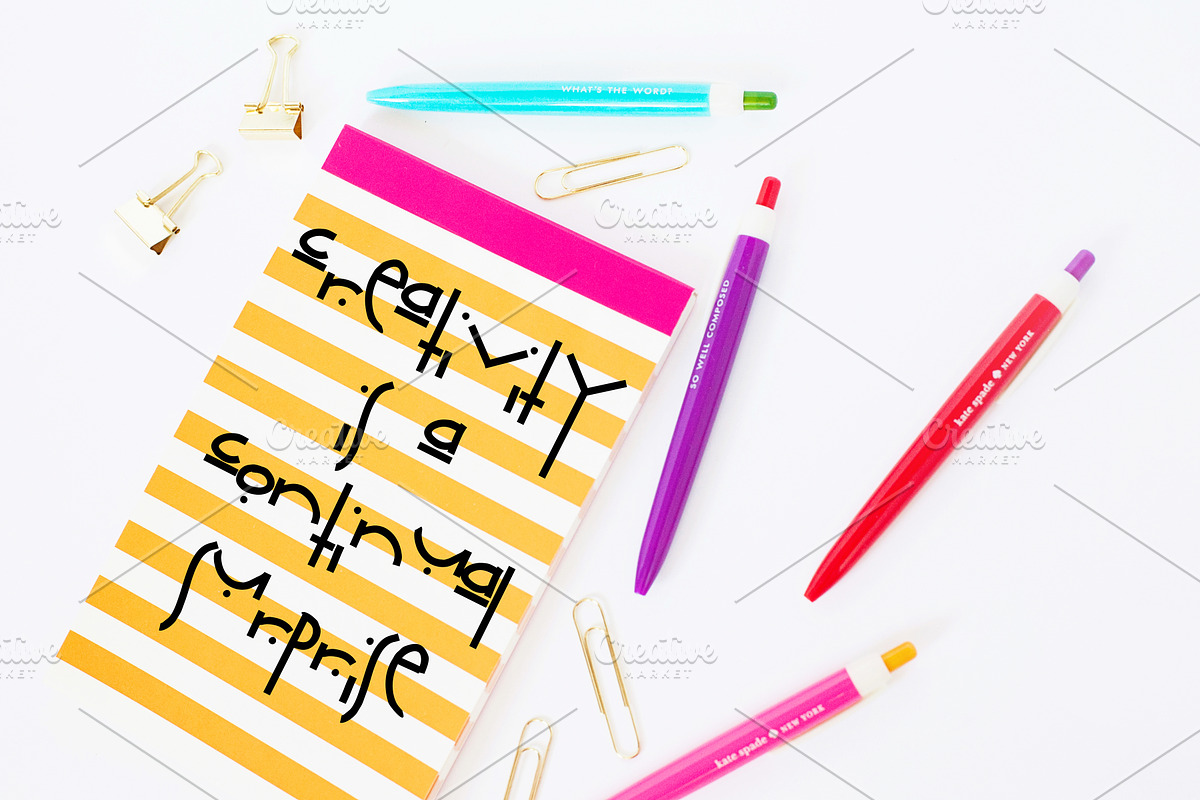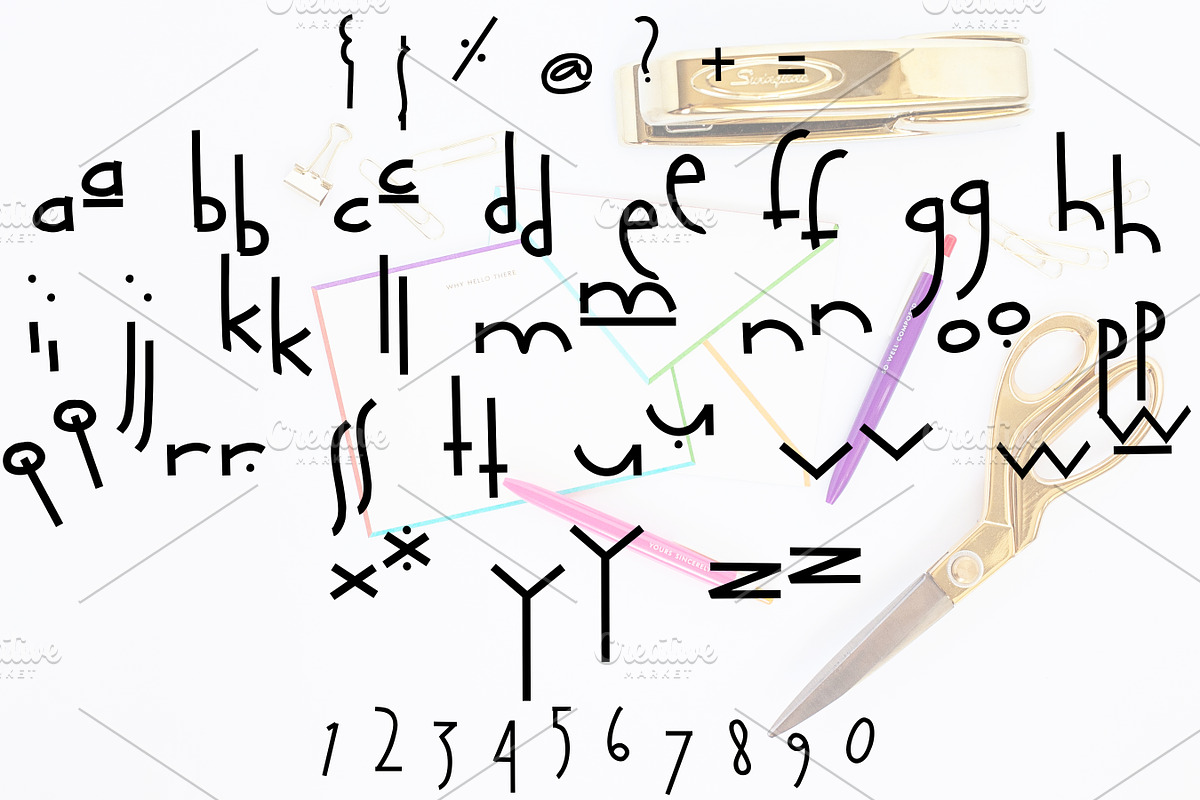
CLEAN & CLEAR Hand Crafted Font
CLEAN & CLEAR Hand Crafted Font by Rhonna Designs is a font selected for branding, posters, packaging, typography.
Why CLEAN & CLEAR Hand Crafted Font is worth a look
CLEAN & CLEAR Hand Crafted Font by Rhonna Designs fits naturally into Branding, posters, packaging, typography.